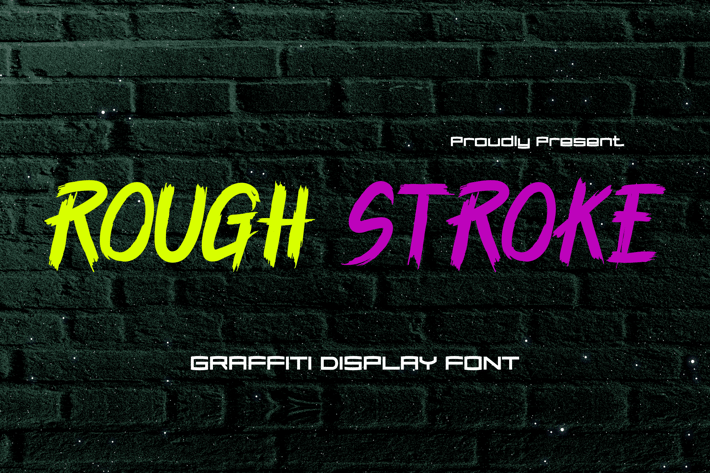
Rough Stroke - Graffiti Display Font
It is rough, since that's is what it is... a brute force that coming from a youth energy we all have inside.
Suit perfectly for young age segmented magazine, poster, movie title, music poster, youtube covers, youtube thumbnails, social media page covers and so on...